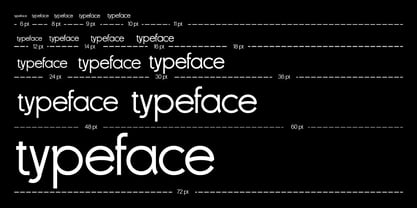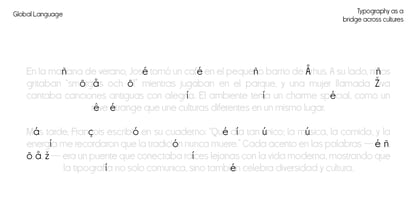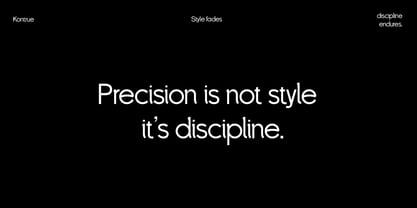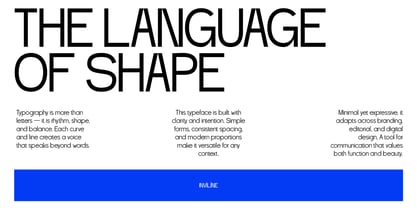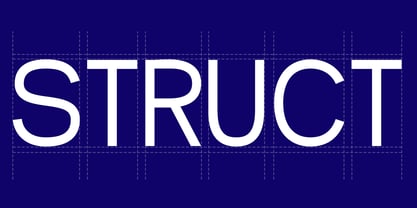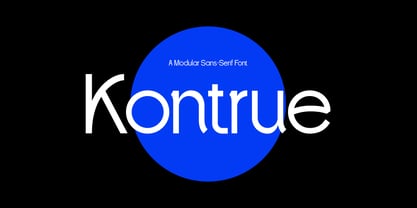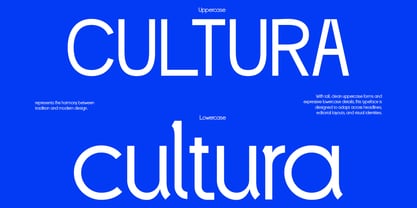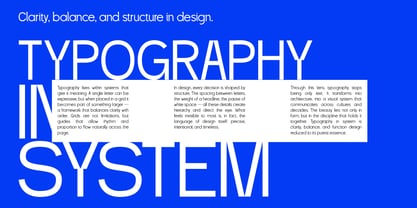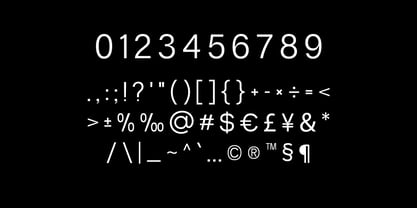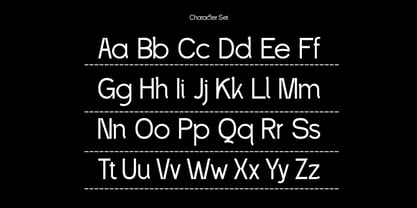
Kontrue
by Inviline
The Kontrue Font Family was designed by Virgiawan Listanto and published by Inviline. Kontrue contains 1 styles. More about this family
Kontrue is a modular sans-serif font that combines futuristic elements with minimalist elegance. Crafted for precision and clarity, each character showcases geometric consistency, featuring sharp terminals and subtle curves that enhance its striking versatility. Ideal for a range of applications, Kontrue excels in digital interfaces, fashion branding, modern editorial design, and tech startups. Whether utilized in display sizes or body text, this font ensures clarity while maintaining a unique presence. Features: All uppercase and lowercase letters, numerals and punctuation, extensive symbols and currency characters, multilingual support, standard Latin character set, clean geometric construction. Perfect for: modern branding and logo design, tech and startup visual identity, posters, headlines, and editorial layouts, web UI/UX design, fashion lookbooks, futuristic product packaging, corporate presentations, social media templates. Kontrue is the ideal choice for those seeking a contemporary font that stands out in any context, ensuring your message is communicated with both style and clarity.
Designers: Virgiawan Listanto
Foundry: Inviline